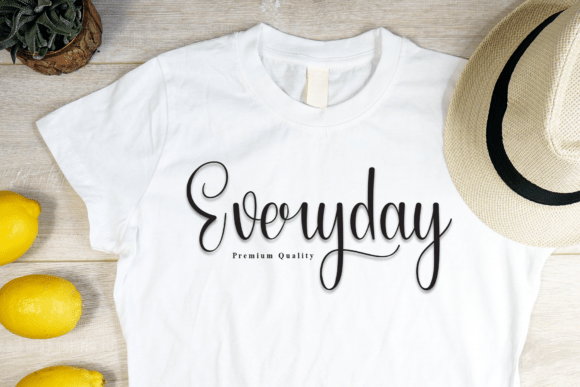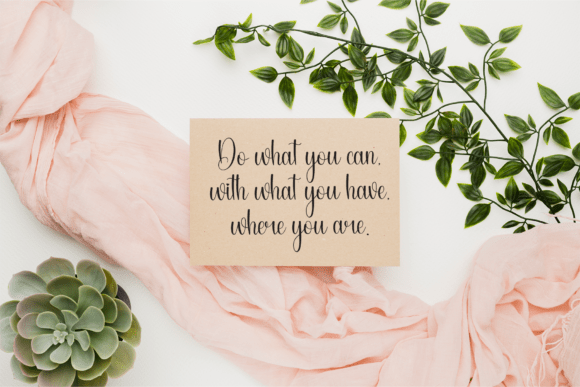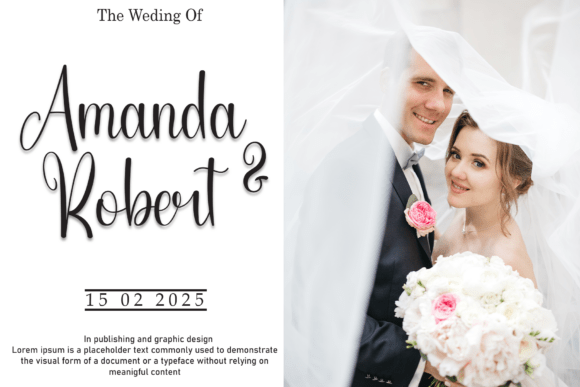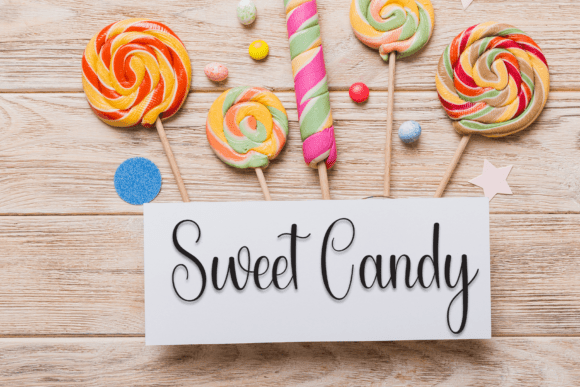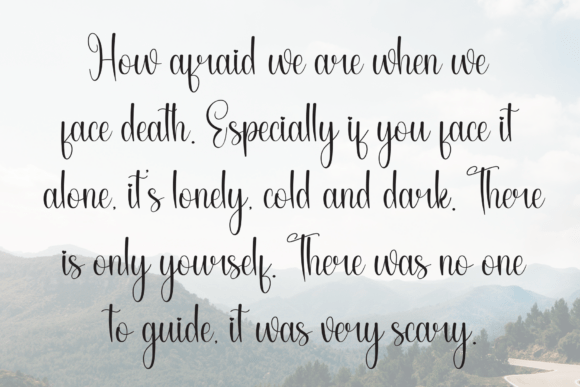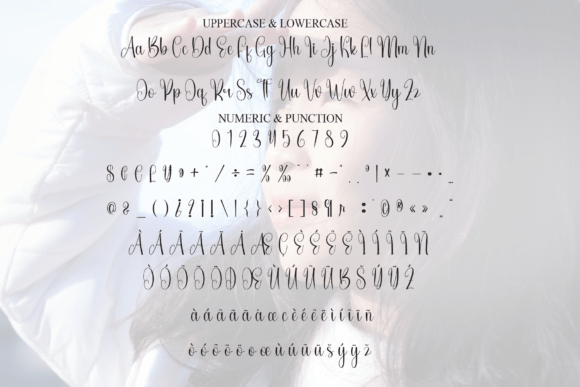
Introducing Cutegirl Font: The Perfect Blend of Elegance and Playfulness
In the world of typography, fonts play a crucial role in conveying the tone and personality of a brand or design. For designers and crafters looking for a typeface that exudes modern elegance with a playful touch, Cutegirl Font is an excellent choice. This stylish handwritten script font is designed to bring a personal feel to any design, making it ideal for logos, packaging, and invitations.
The Unique Characteristics of Cutegirl Font
Cutegirl Font boasts fluid strokes and charming curves that set it apart from other typefaces. Its unique blend of modern sophistication and playfulness makes it perfect for designers who want to add a touch of warmth and creativity to their projects. Whether you’re working on a logo, packaging, or invitation, Cutegirl Font is sure to make your design stand out.
Key Features of Cutegirl Font
- Handwritten Script Font: Cutegirl Font is a handwritten script font that adds a personal touch to any design.
- Modern Elegance: Its fluid strokes and charming curves give it a modern and elegant feel.
- Playful Touch: The font’s playful curves and strokes add a touch of whimsy to any design.
- Versatile: Cutegirl Font is suitable for a wide range of design projects, including logos, packaging, and invitations.
Why Choose Cutegirl Font?
There are many reasons why designers and crafters should consider Cutegirl Font for their next project. Here are a few:
- Unique and Eye-Catching: Cutegirl Font is a unique and eye-catching typeface that will make your design stand out from the crowd.
- Easy to Read: Despite its playful curves and strokes, Cutegirl Font is easy to read, making it perfect for body text and headings.
- Customizable: Cutegirl Font can be customized to fit your brand’s personality and style.
- Support for Multiple Languages: Cutegirl Font supports multiple languages, making it a great choice for designers working on international projects.
How to Use Cutegirl Font in Your Design
Using Cutegirl Font in your design is easy. Here are a few tips to get you started:
- Pair it with Other Fonts: Cutegirl Font pairs well with other fonts, including sans-serif and serif fonts.
- Use it for Headings and Titles: Cutegirl Font is perfect for headings and titles, where its playful curves and strokes can add a touch of elegance and sophistication.
- Experiment with Colors and Textures: Cutegirl Font looks great in a variety of colors and textures, so don’t be afraid to experiment and find the perfect combination for your design.
In conclusion, Cutegirl Font is a stylish handwritten script font that blends modern elegance with a playful touch. Its fluid strokes and charming curves bring a personal feel to any design, making it ideal for logos, packaging, and invitations. With its unique characteristics, key features, and versatility, Cutegirl Font is a great choice for designers and crafters looking to add warmth, sophistication, and creativity to their projects.